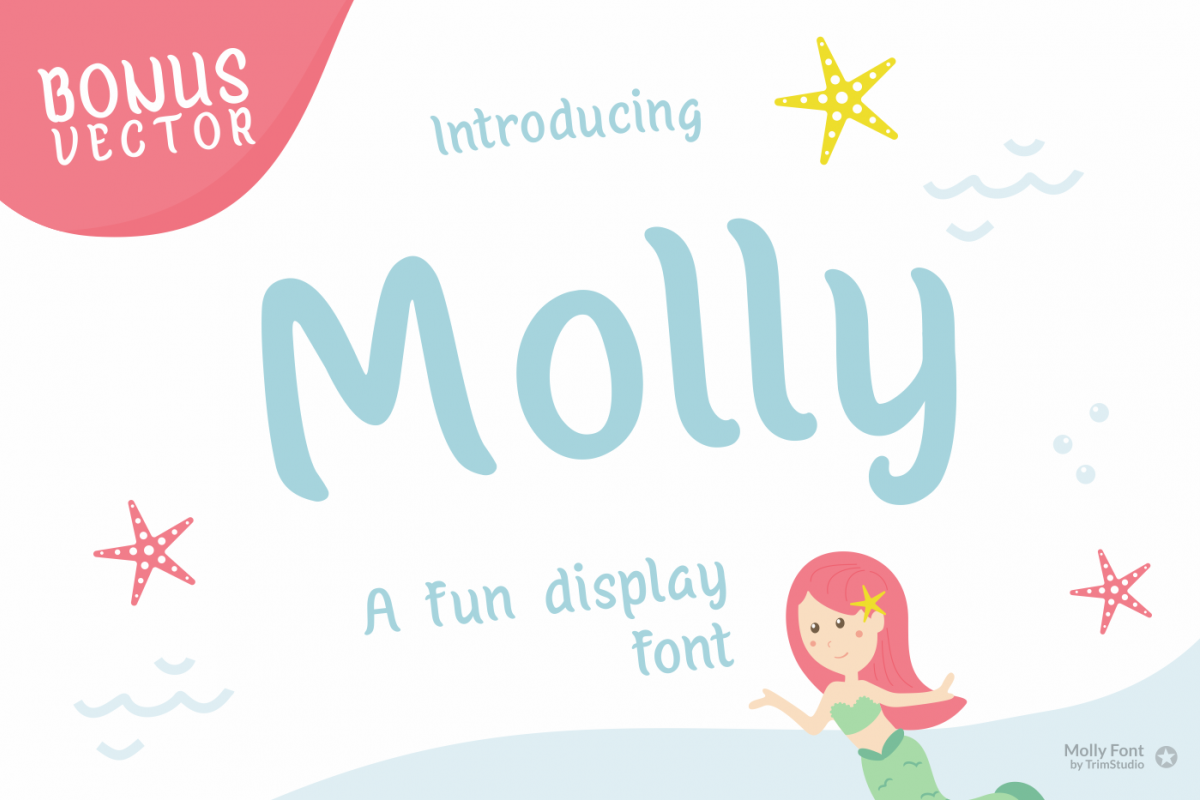
Molly - Mermaid Display font
Introducing Molly - Mermaid Display Font
Molly is mermaid playful font, with cheerful theme for various project design, it gives your design cheers and fun feels, it also suite for branding, toy store, pet shop, invitation card, tshirt, bag, any many more